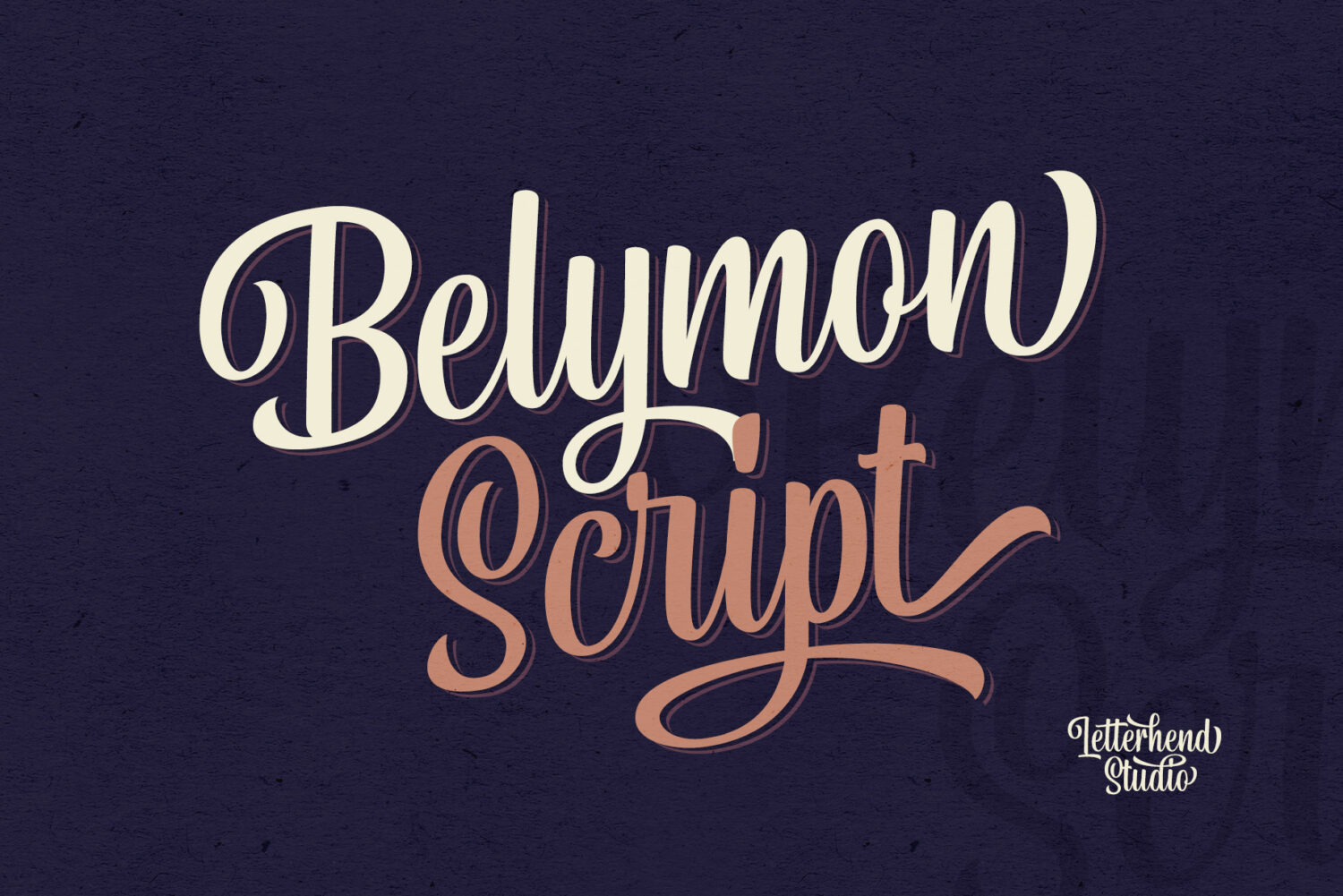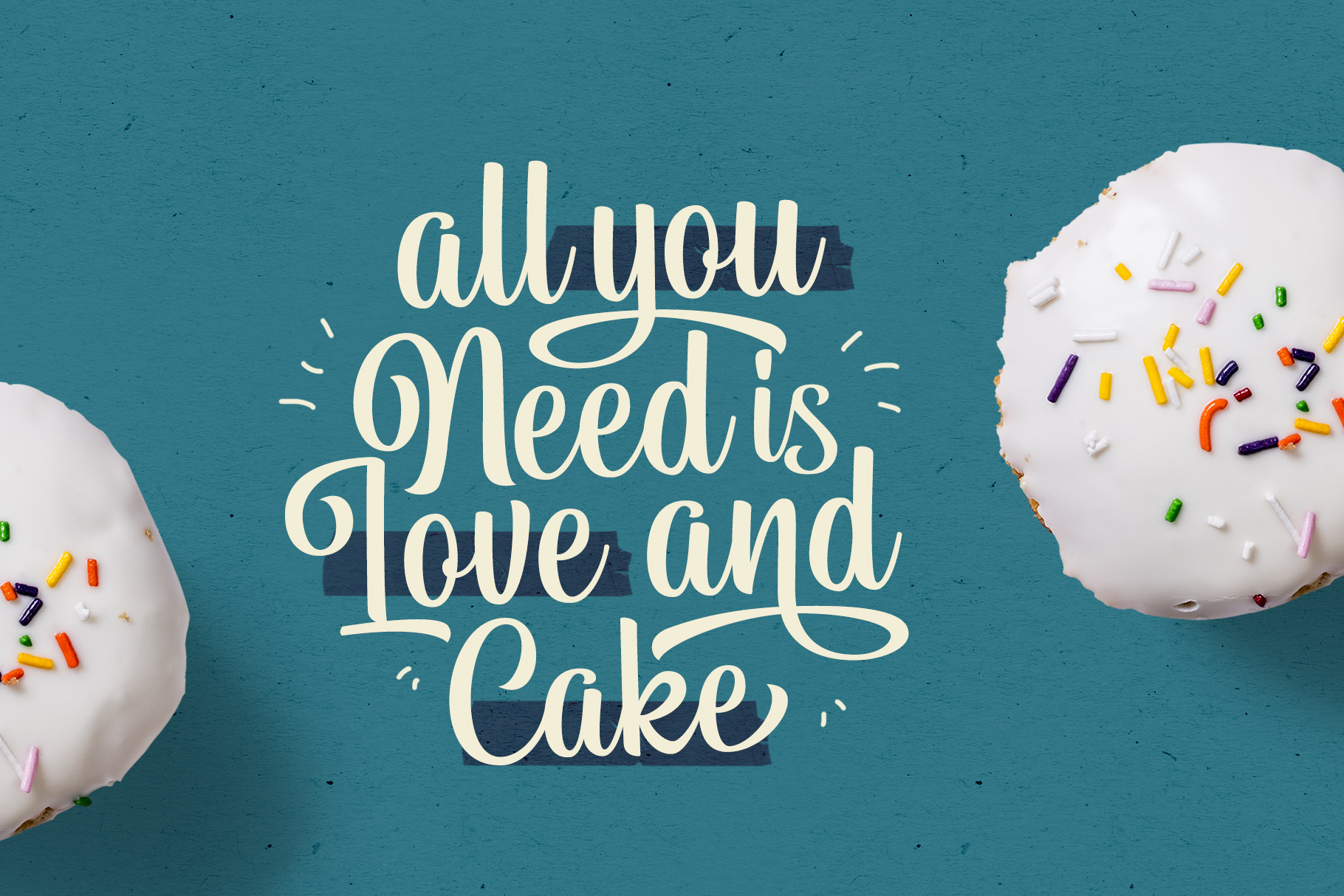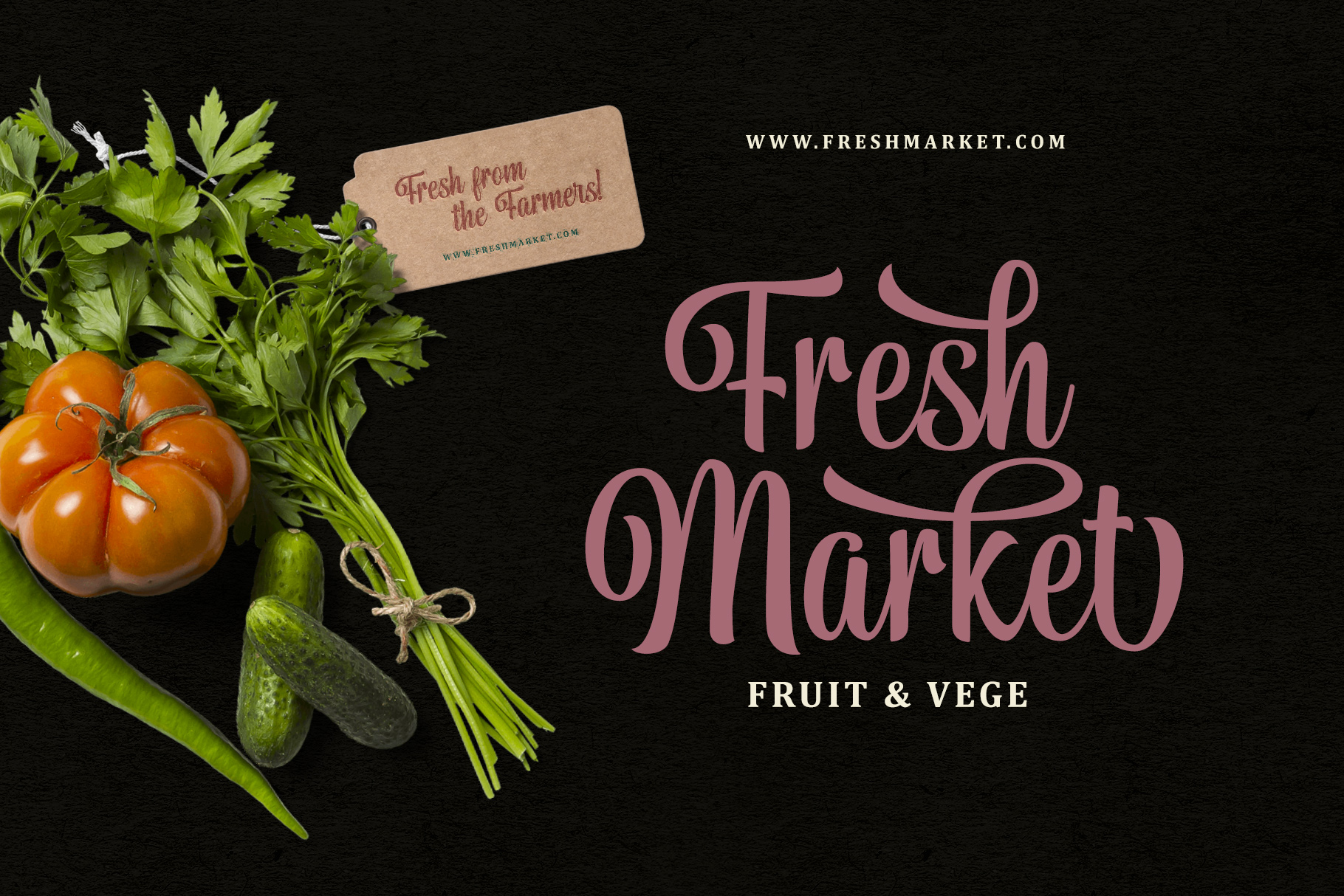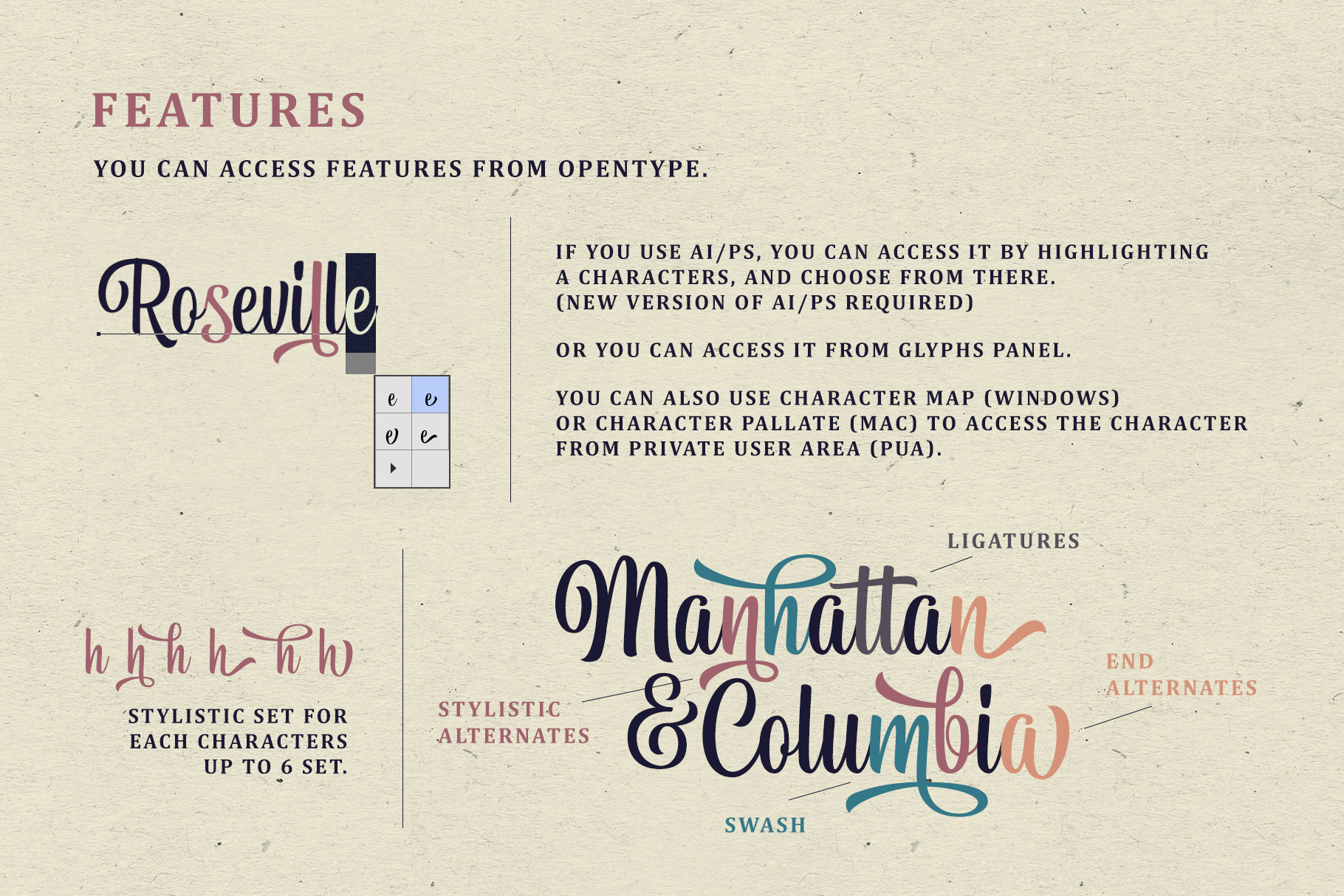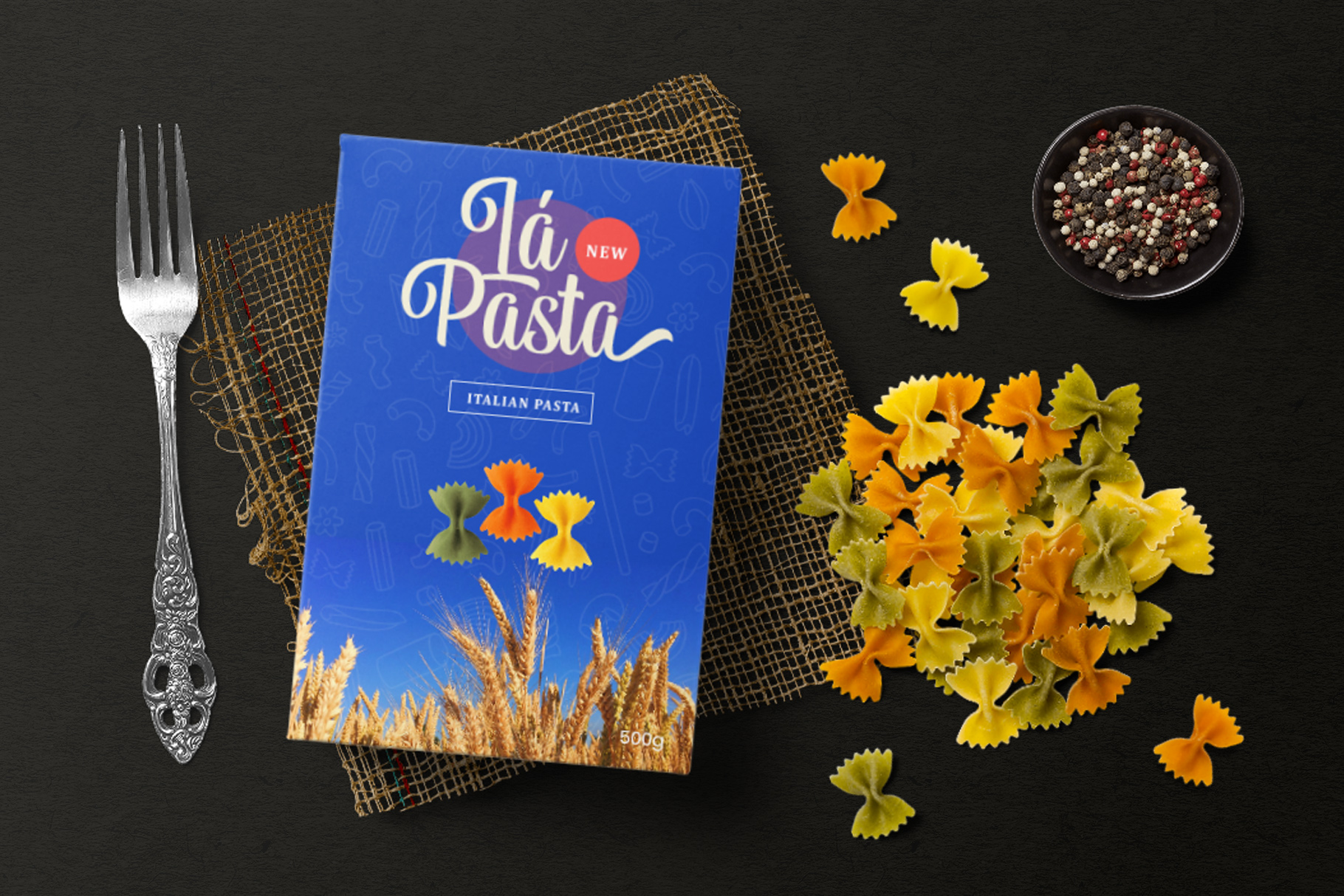
Free Font Belymon
Free Font Belymon is a one-of-a-kind script with classic touch and very readable at glance. Really perfect for you who needs a typeface for especially logotype, apparel, invitation, branding, packaging, advertising, etc. The main feature for this script is a stylistic set for each character up to 6 sets. Just play around and you will enjoy it. This typeface comes in uppercase, lowercase, punctuations, symbols & numerals, stylistic set alternate, ligatures, etc also support multilingual and already PUA encoded. This free typeface was designed by a talented Hendry Juanda. If you like it don’t forget to check out the full version.